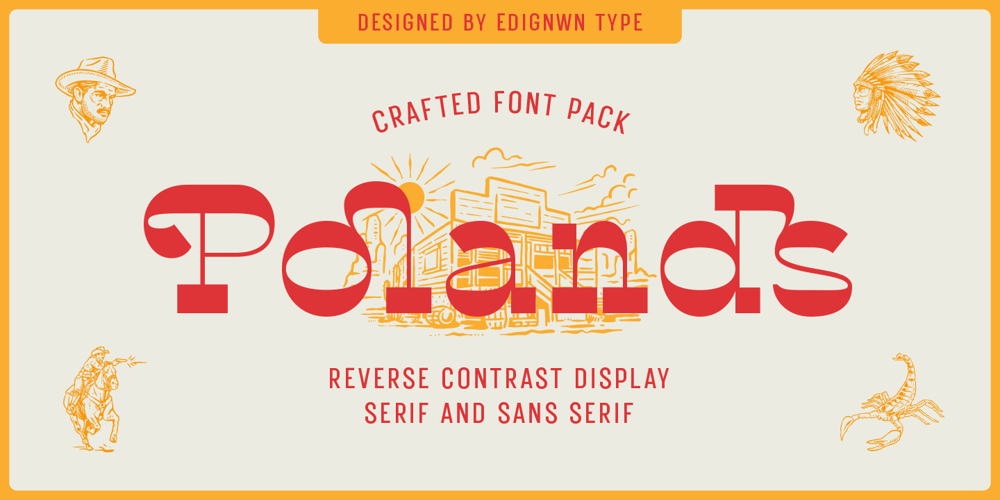
Polands
Polands font
Polands Font Family was designed by Edi Gunawan and published by Edignwn Type. Polands contains 9 styles and family package options. The font collection is called “Polands”, it is a reverse contrast display for crafted fonts. These collections contain serif and sans serif font. Every font comes with 4 style typefaces (regular, rounded, rough and textured). This slab serif font includes some alternates and ligatures. The Polands matches apply in some designs such as the logo, poster, label, badge, packaging, t-shirt, branding, quotes and more custom design.